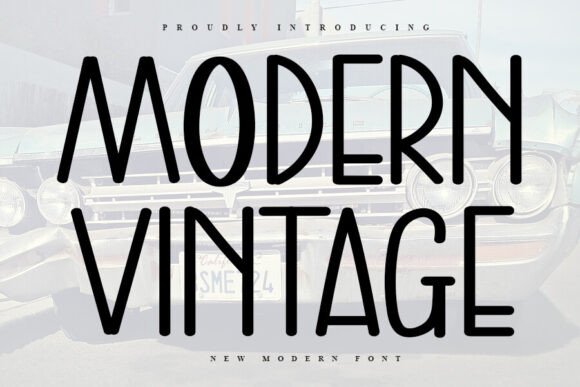
Modern Vintage Font: Elevate Your Design with Timeless Elegance
In the world of design, fonts play a crucial role in conveying the message and aesthetic of a brand. With numerous font styles available, finding the perfect one that blends modernity with classic appeal can be a daunting task. However, if you’re looking for a font that exudes elegance, sophistication, and uniqueness, look no further than the Modern Vintage font. In this article, we’ll explore the features, benefits, and applications of this versatile font, and how it can elevate your design to new heights.
Introducing the Modern Vintage Font
The Modern Vintage font is an elegant blend of contemporary creativity and classic appeal. This font seamlessly breathes new life into your diverse design needs, from the dynamic arena of YouTube banners to the exquisite beauty of wedding invitations. With its unique blend of modern and vintage elements, this font is perfect for designers, businesses, and individuals looking to add a touch of sophistication to their designs.
- Elegant and Sophisticated: The Modern Vintage font boasts an elegant and sophisticated design, making it perfect for high-end brands, luxury products, and special occasions.
- Versatile: This font is incredibly versatile and can be used for a wide range of design applications, including logos, branding, advertising, packaging, and more.
- Unique: The Modern Vintage font has a unique charm that sets it apart from other fonts. Its blend of modern and vintage elements creates a distinctive look that’s sure to grab attention.
Design Applications of Modern Vintage Font
The Modern Vintage font is an incredibly versatile font that can be used for various design applications. Here are some of the ways you can use this font to elevate your design:
- YouTube Banners: Create stunning YouTube banners that showcase your brand’s personality and style.
- Wedding Invitations: Add a touch of elegance and sophistication to your wedding invitations with the Modern Vintage font.
- Cover Logo Mockups: Elevate the style of your cover logo mockups with this font, making them more memorable and impactful.
- ID Cards: Create professional and stylish ID cards that make a great impression.
- Flyers: Design eye-catching flyers that grab attention and communicate your message effectively.
- Crafts: Use the Modern Vintage font to add a personal touch to your crafts, making them more unique and special.
The Benefits of Using Modern Vintage Font
Using the Modern Vintage font can have numerous benefits for your design and business. Here are some of the advantages of using this font:
- Elevate Your Brand: The Modern Vintage font can help elevate your brand’s style and sophistication, making it more memorable and impactful.
- Increase Engagement: This font can help increase engagement and attention to your design, making it more effective in communicating your message.
- Stand Out from the Crowd: The Modern Vintage font is unique and distinctive, making it easy to stand out from the crowd and differentiate your brand.
- Improve Readability: This font is designed to be highly readable, making it perfect for body text, headings, and titles.
- Scalability: The Modern Vintage font is highly scalable, making it suitable for use on various platforms and devices.
- Choose the Right Size: Choose the right size for your font, depending on the design application and platform.
- Experiment with Colors: Experiment with different colors and textures to find the perfect combination for your design.
- Pair with Other Fonts: Pair the Modern Vintage font with other fonts to create a unique and harmonious design.
Tips and Tricks for Using Modern Vintage Font
Here are some tips and tricks for using the Modern Vintage font:
- Use for Headings and Titles: Use the Modern Vintage font for headings and titles to add a touch of elegance and sophistication.
- Mix with Modern Elements: Mix the Modern Vintage font with modern elements, such as bold colors and geometric shapes, to create a unique design.
- Use for Body Text: Use the Modern Vintage font for body text to create a readable and engaging design.
- Experiment with Ligatures: Experiment with ligatures and other special characters to add a touch of elegance to your design.
In conclusion, the Modern Vintage font is a versatile and elegant font that can elevate your design to new heights. With its unique blend of modern and vintage elements, this font is perfect for designers, businesses, and individuals looking to add a touch of sophistication to their designs. Whether you’re creating a YouTube banner, wedding invitation, or logo, the Modern Vintage font is sure to make a memorable statement. So why wait? Download the Modern Vintage font today and harness the power of timeless elegance in your design.